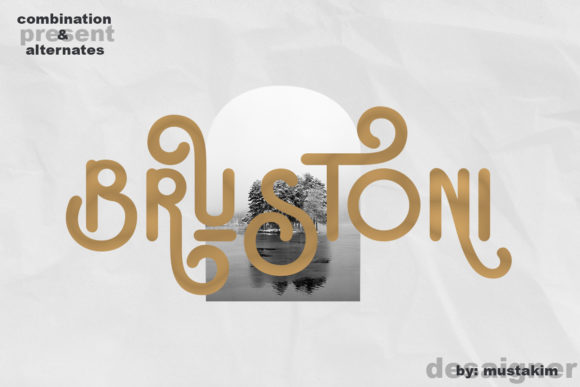
The Ultimate Brustoni Font Review: Adding a Dash of Quirkiness to Your Designs
I’ll never forget the time I was working on a branding project for a trendy new coffee shop. My client wanted a font that was fun, playful, and would stand out on their packaging and marketing materials. I scoured the internet, tried out dozens of fonts, but nothing seemed quite right. That was until I stumbled upon Brustoni. This enchanting display font has since become a staple in my design toolkit, and I’m excited to share its charm with you! ✨
An Honest Review of Brustoni Font
What I Love About Brustoni
- ✨ Unique and quirky design that adds a touch of personality to any project
- ✅ Highly legible, even at smaller sizes
- 🎉 Extensive character set, including glyphs and stylistic alternates
- 💥 Perfect for display text, headlines, and titles
While Brustoni is an amazing font, it’s not without its limitations. Here are a few things to keep in mind:
- 🤔 May not be the best choice for body text or longer paragraphs
- ⚠️ Some characters may not work well at very small sizes
The Backstory Behind Brustoni
According to its creators, Brustoni was inspired by the Italian Renaissance and the works of famous artists like Leonardo da Vinci. The font’s unique design is meant to evoke a sense of playfulness and curiosity, making it perfect for creative projects that need a dash of personality.
Q: What is the best way to use Brustoni font?
A: Brustoni is perfect for display text, headlines, and titles. It’s best used sparingly to add a touch of personality to your designs.
Q: Does Brustoni support OpenType features?
A: Yes! Brustoni has an extensive character set and supports OpenType features like glyphs and stylistic alternates.